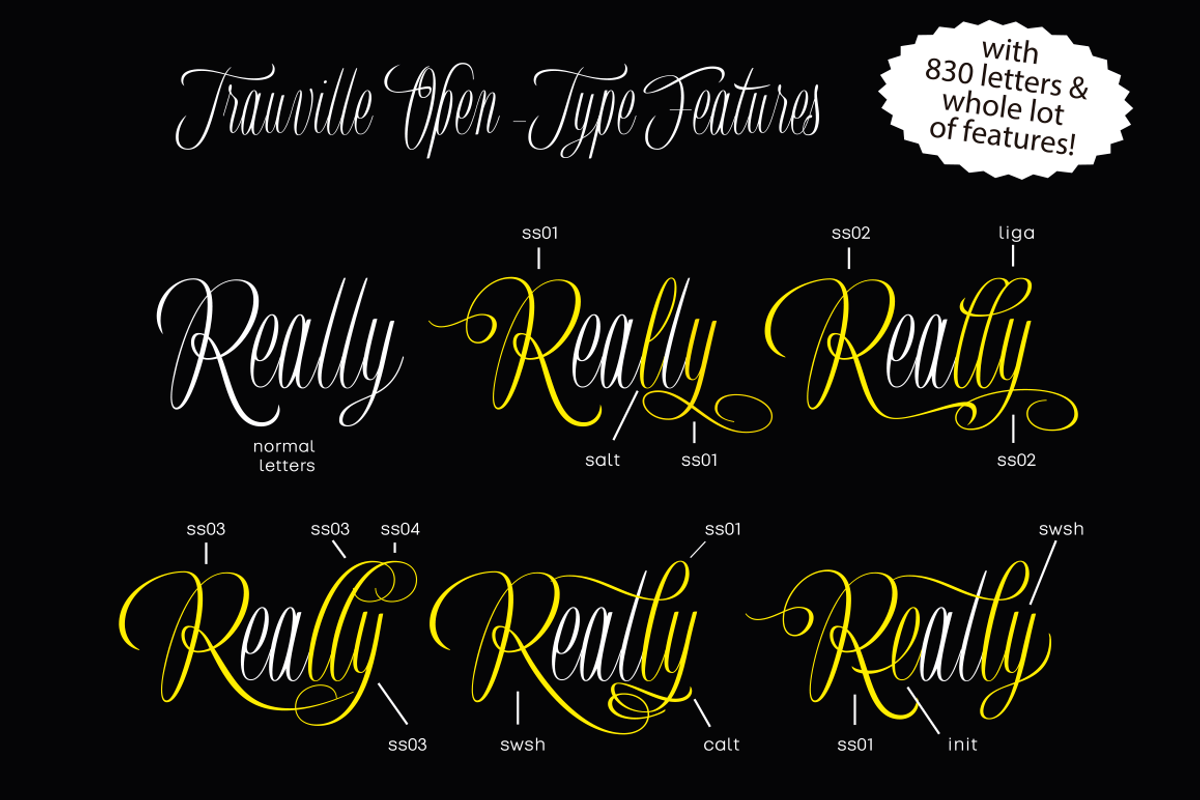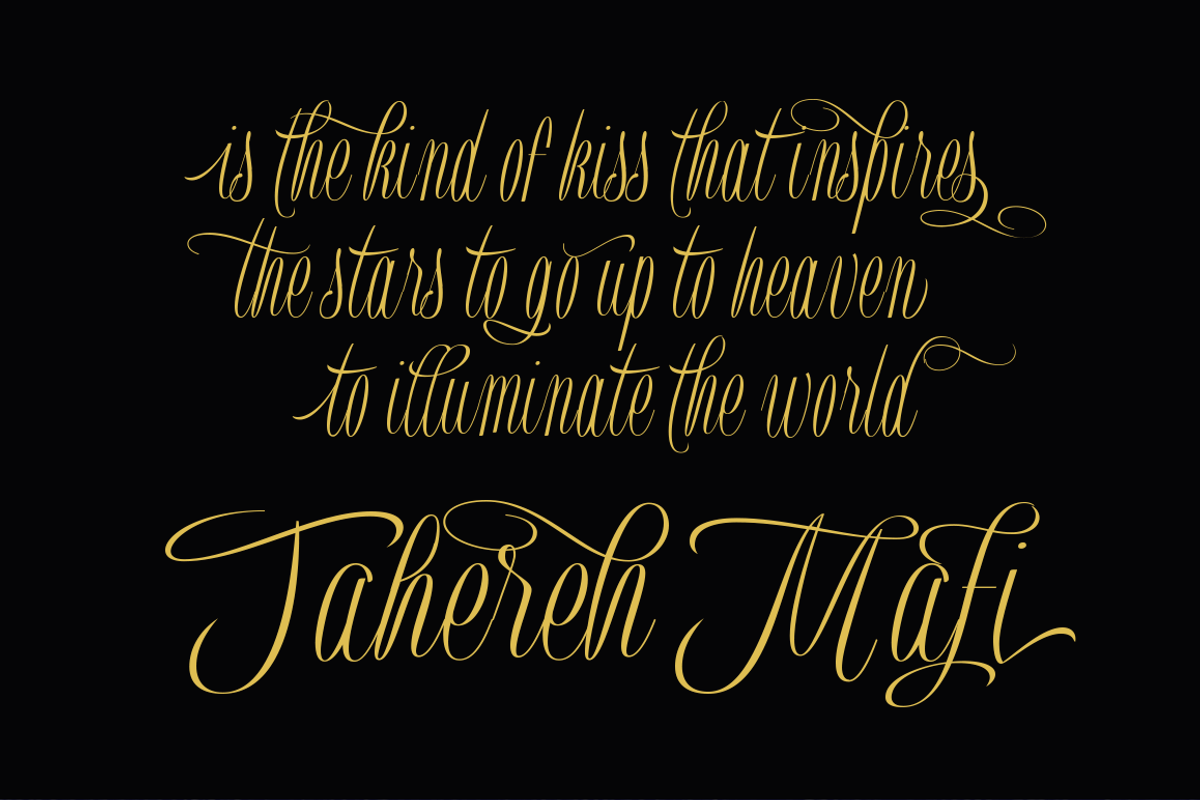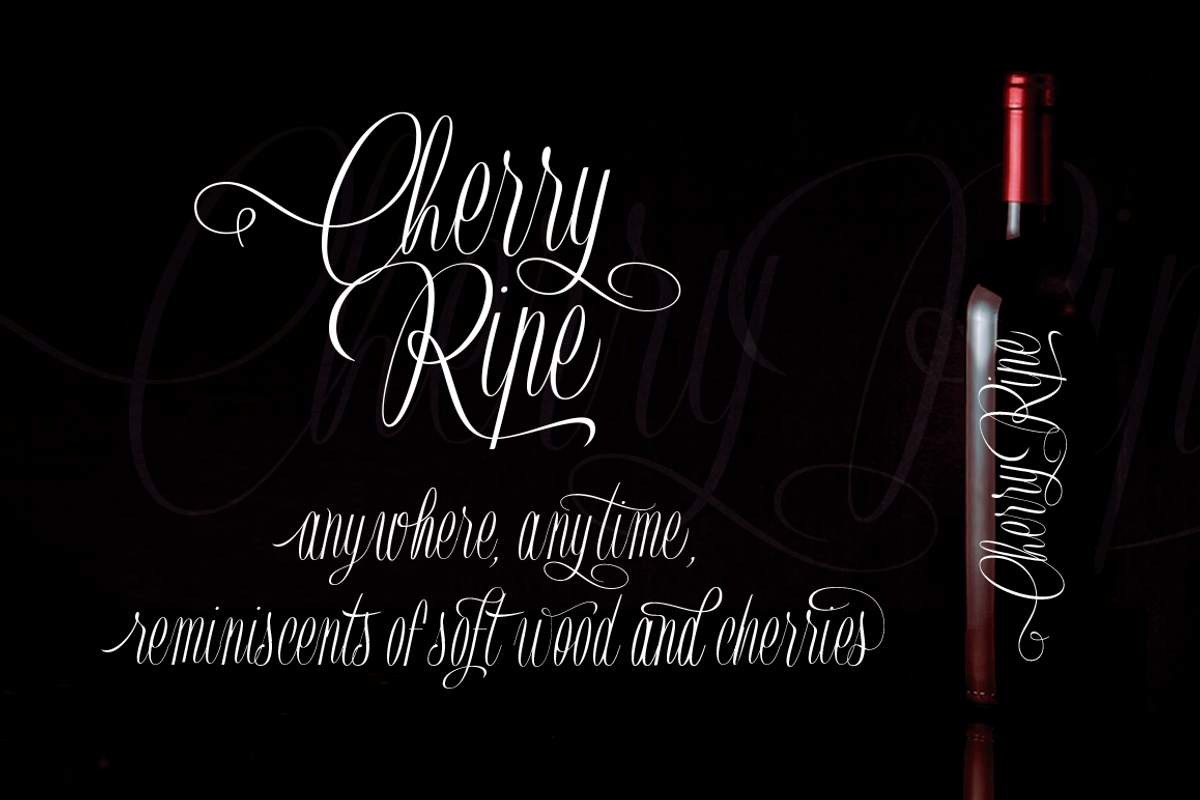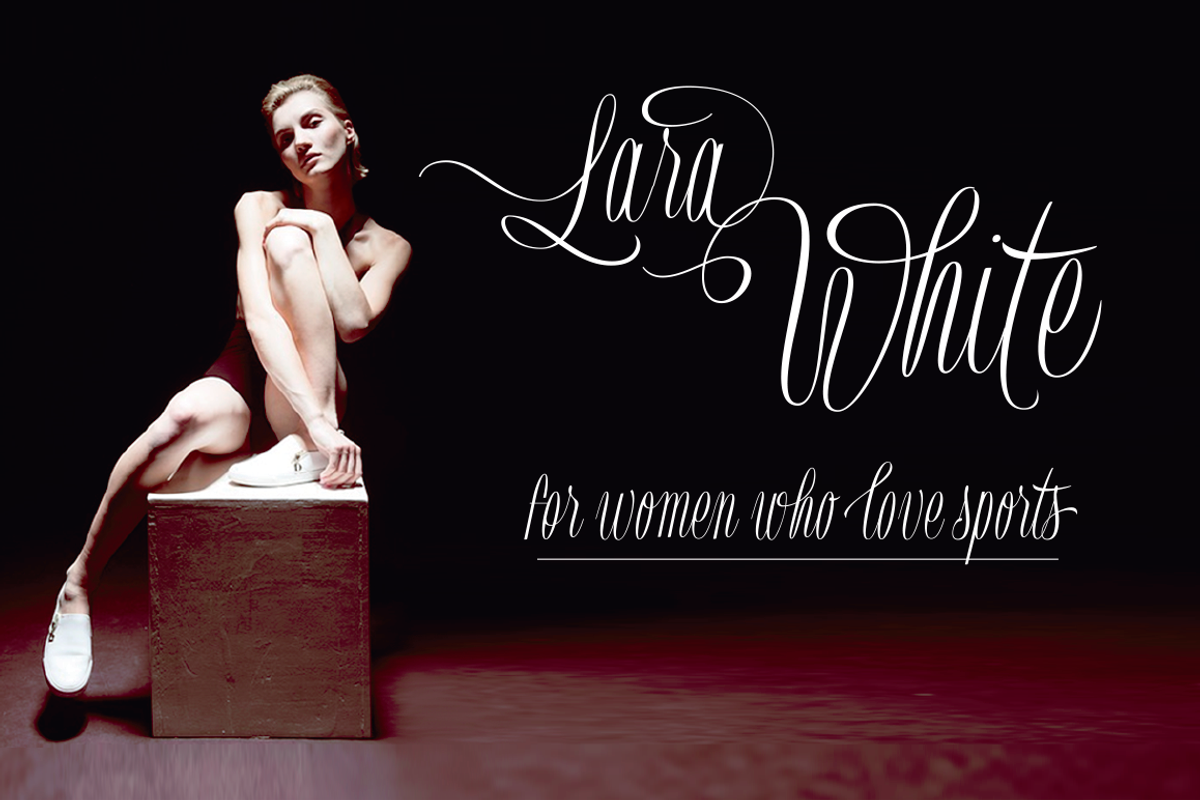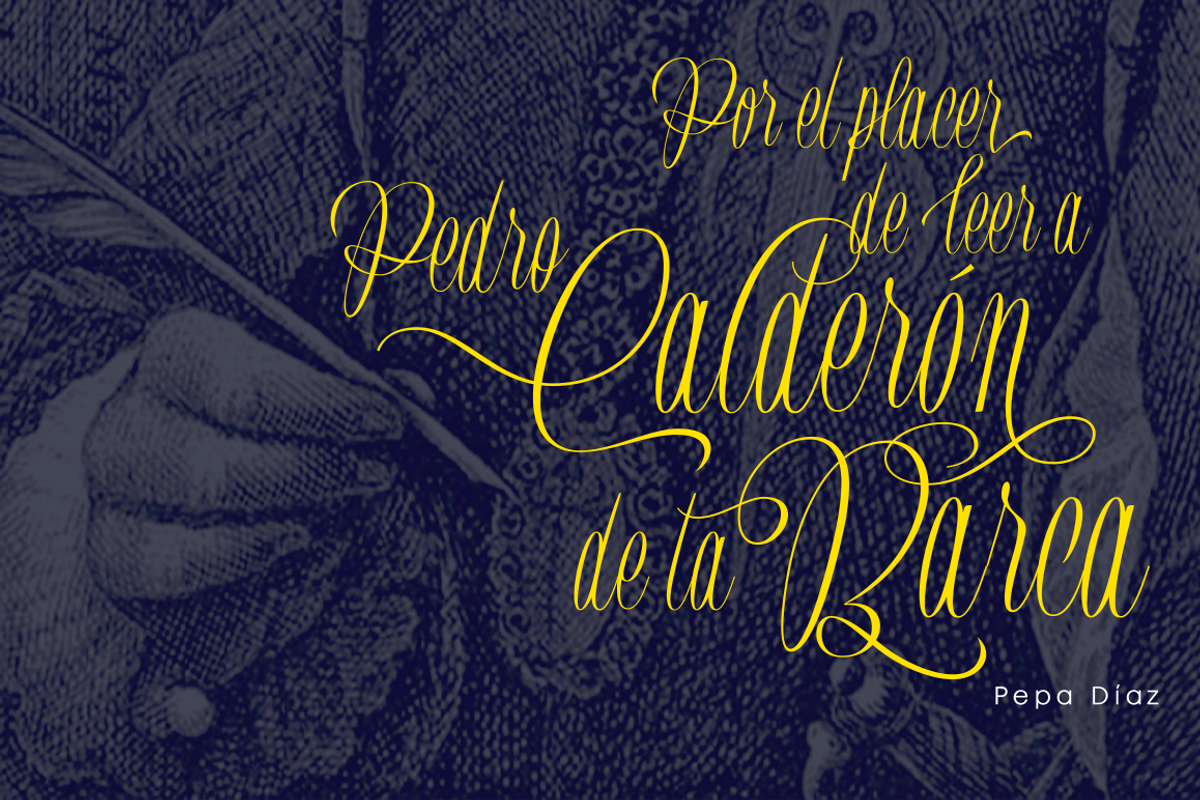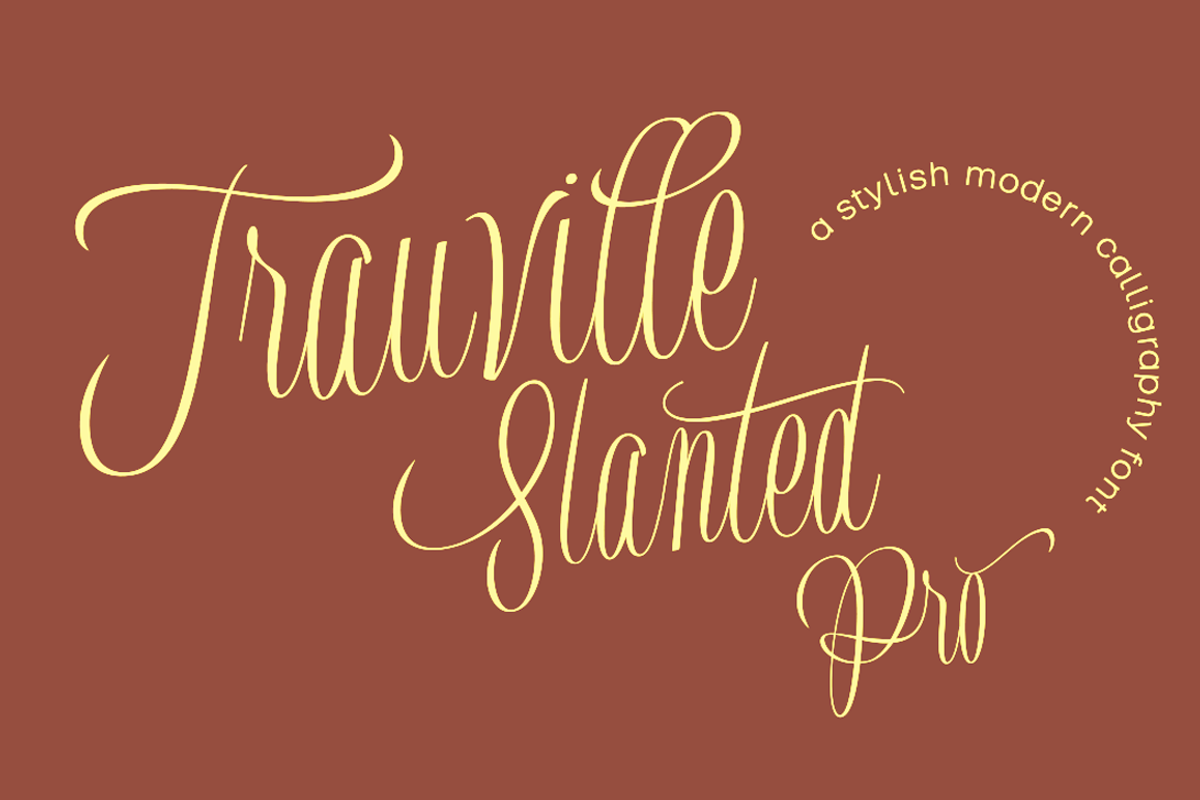
Trauville
Design: Carine de Wandeleer
Trauville is a handmade, modern, joyful and elegant pen font with a vintage touch. Inspired in Beauville Script its informal appearance, the bouncy baseline, the round forms and bumpy stems, the good connection between the letters and the large number of ligatures that create more authentic and varied connections between the letters, refer to the fluent handwriting. With its 830 glyphs, the Trauville font is equipped with contextual and stylistic alternatives, many stylistic alternatives, swashes, initial forms and ligatures. This font contain a Central European language support to adapt to your design. Trauville works perfectly on greeting cards, invitations, weddings, posters, magazines, fashion world, brands and logos, packaging, etc. He is friendly and kind, fresh and fun to work with.